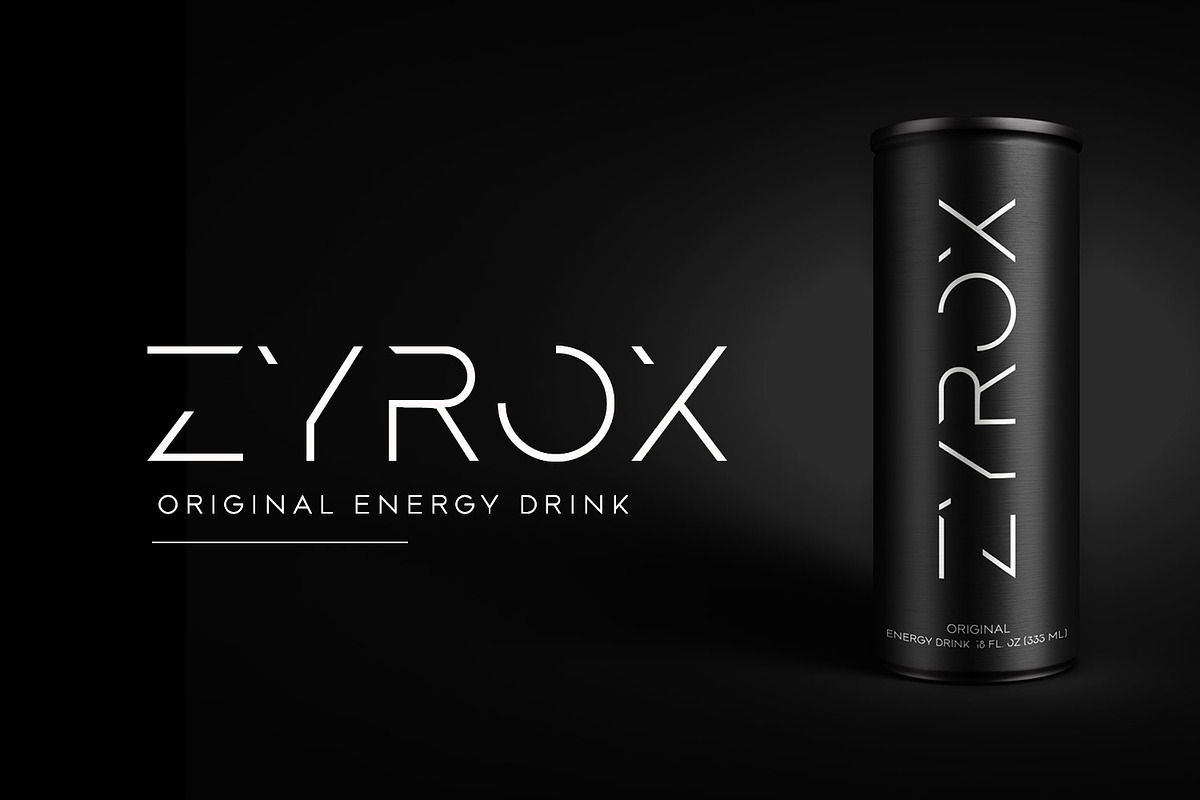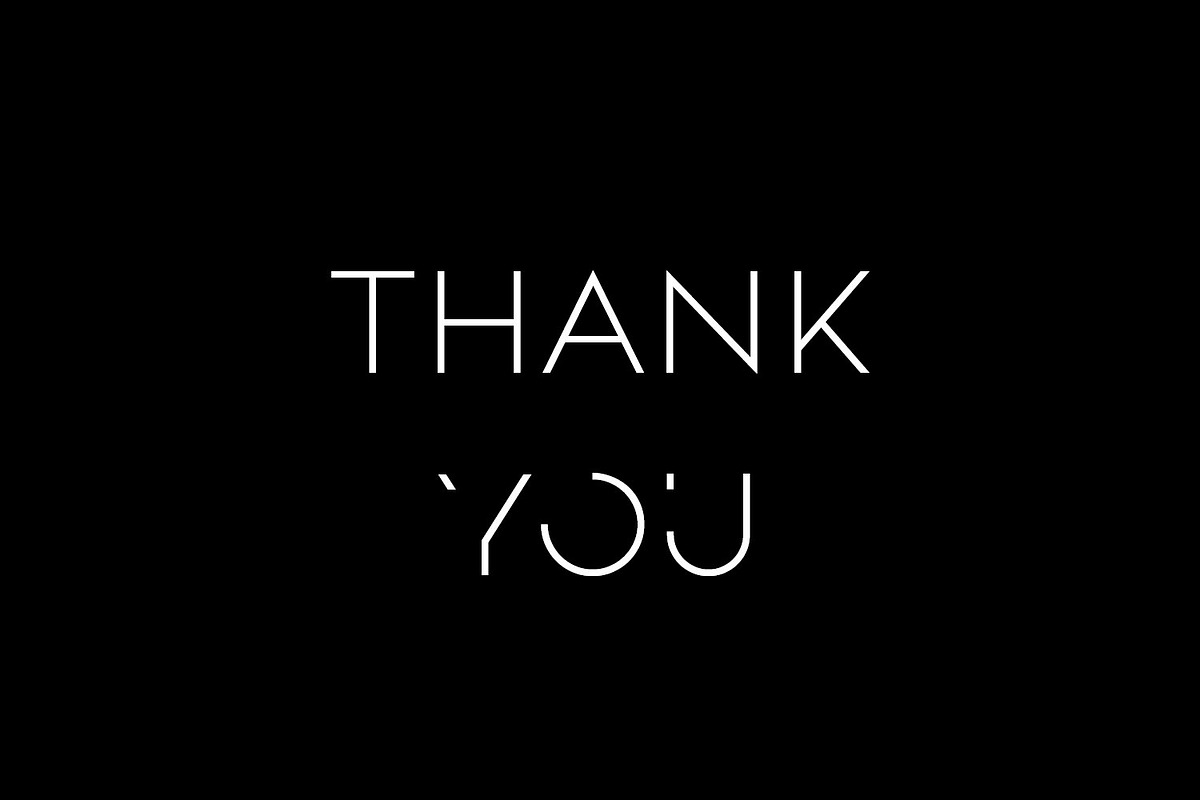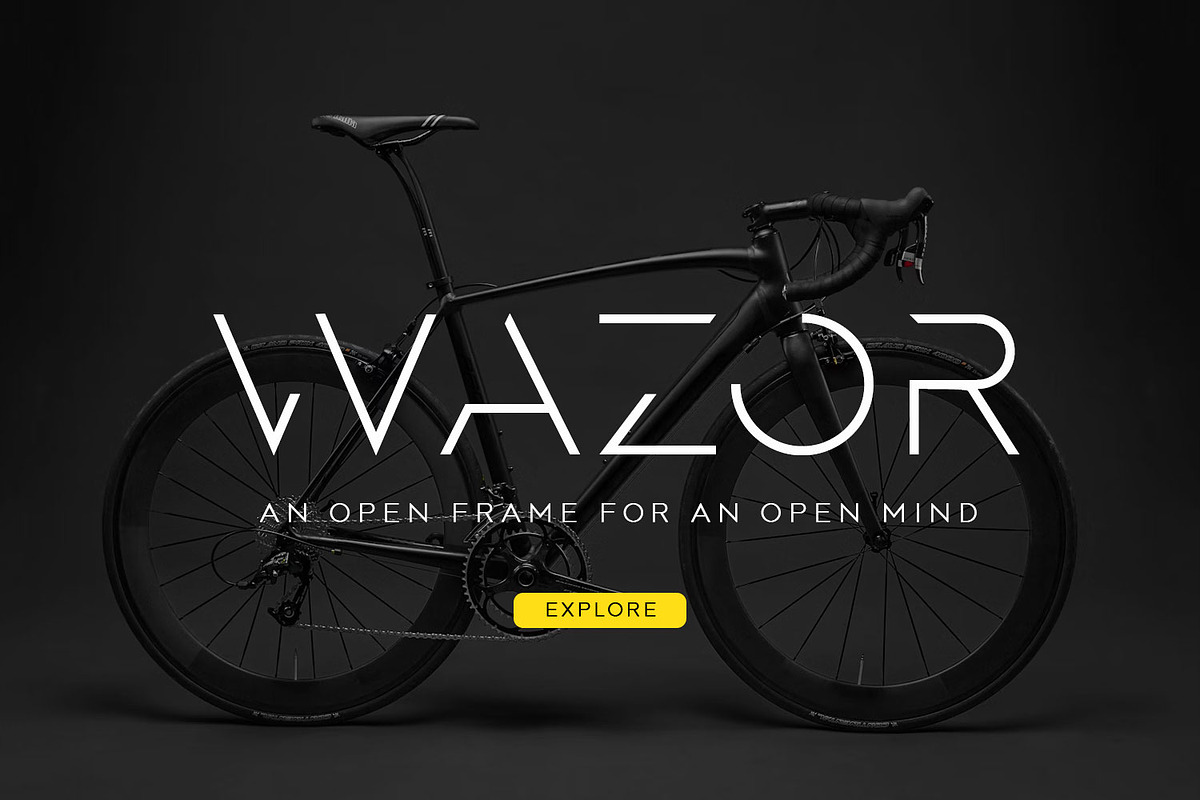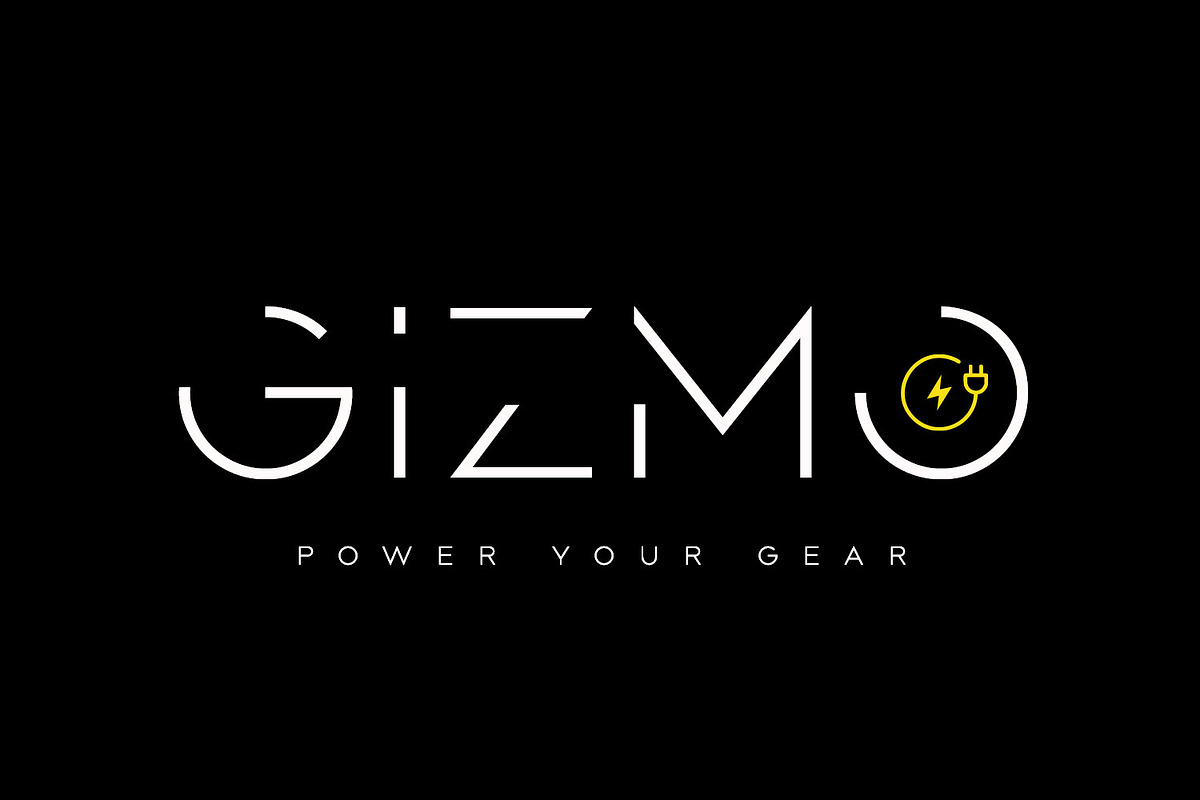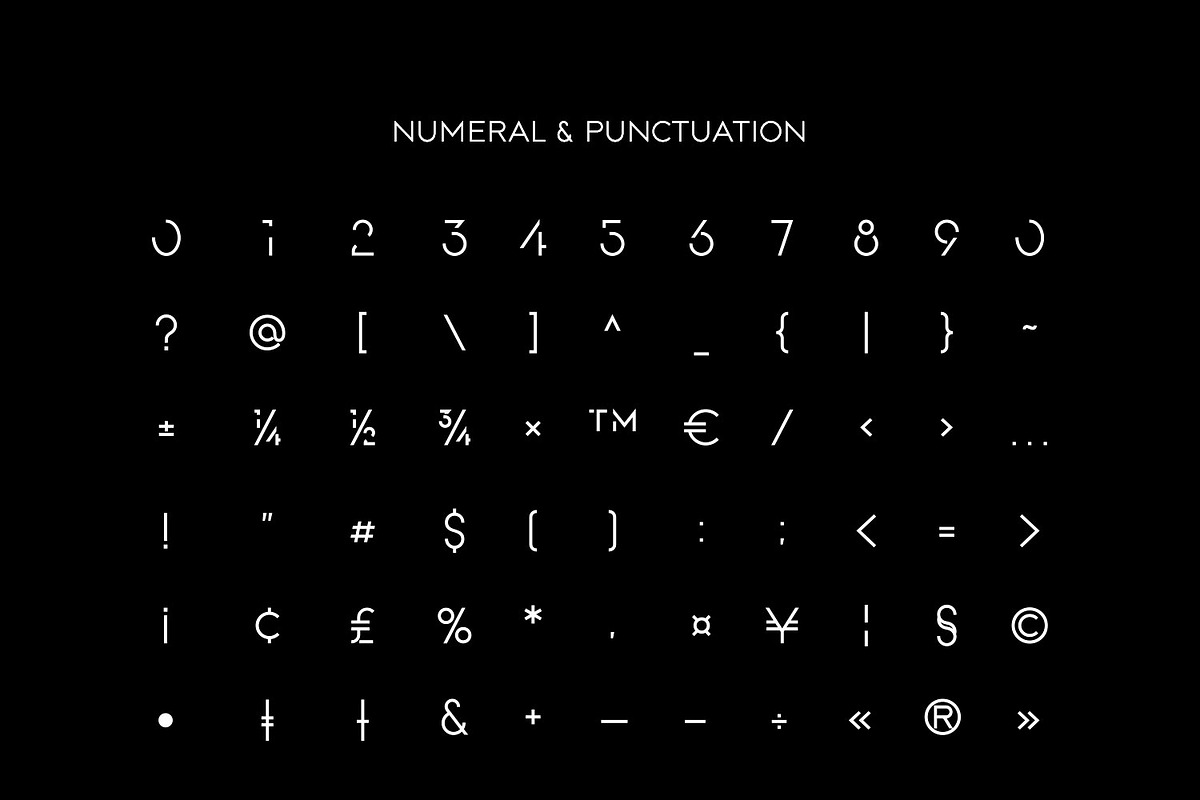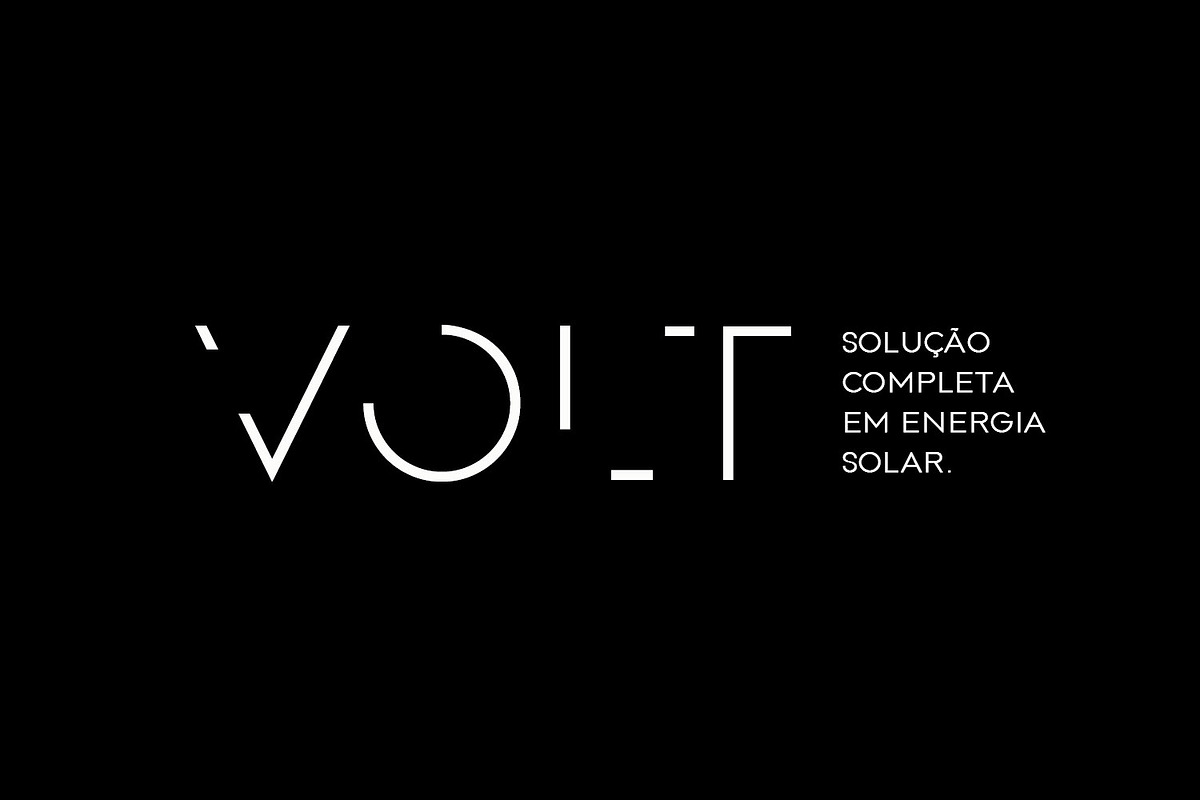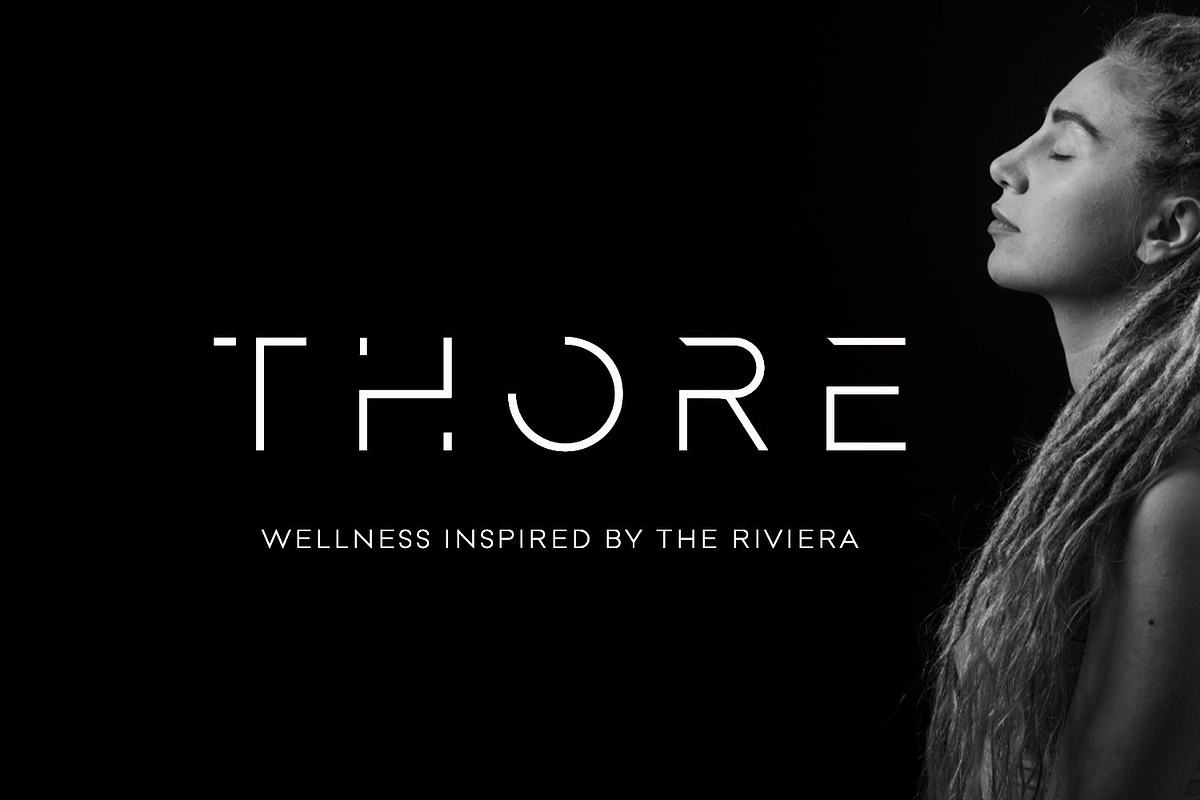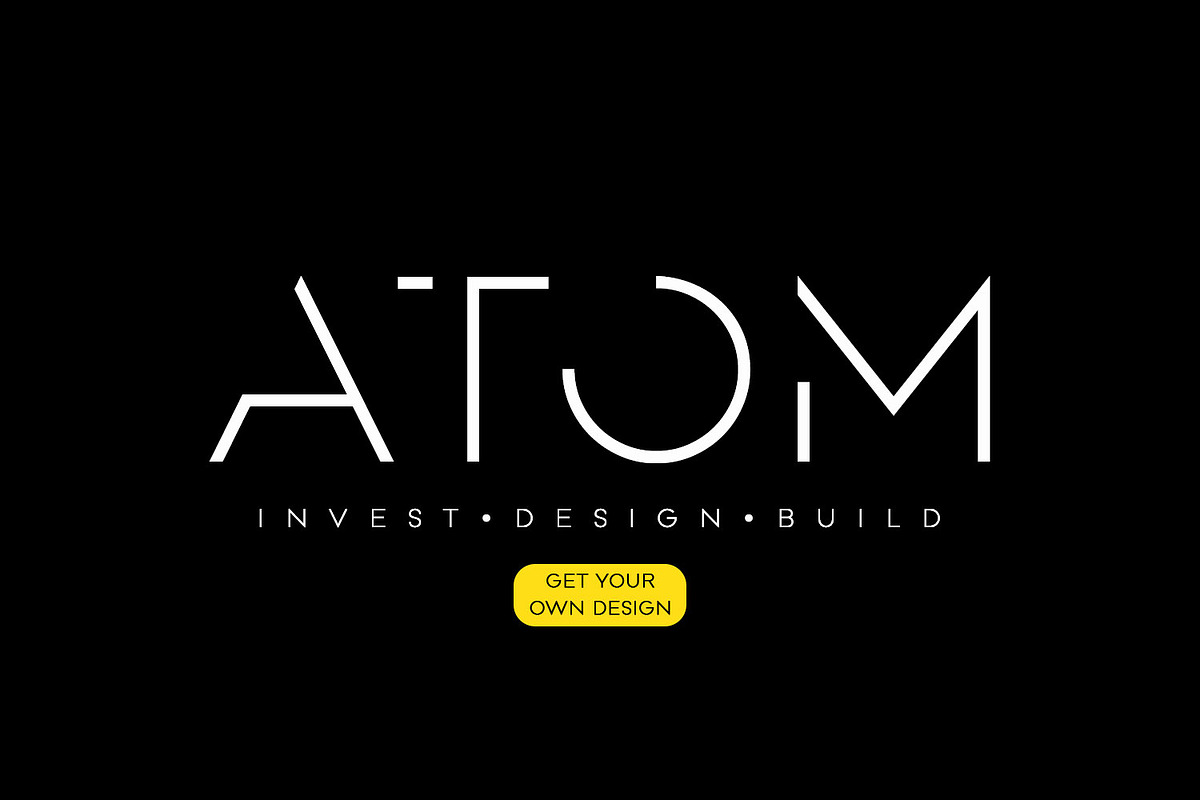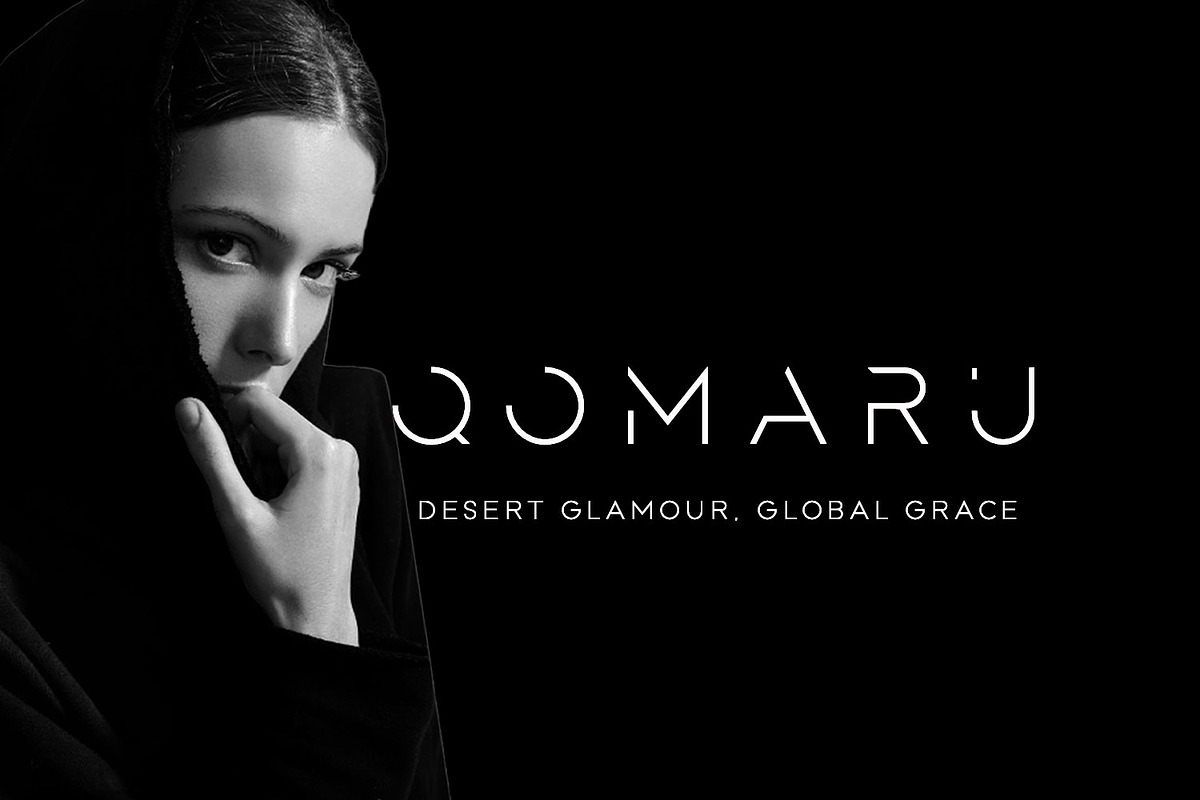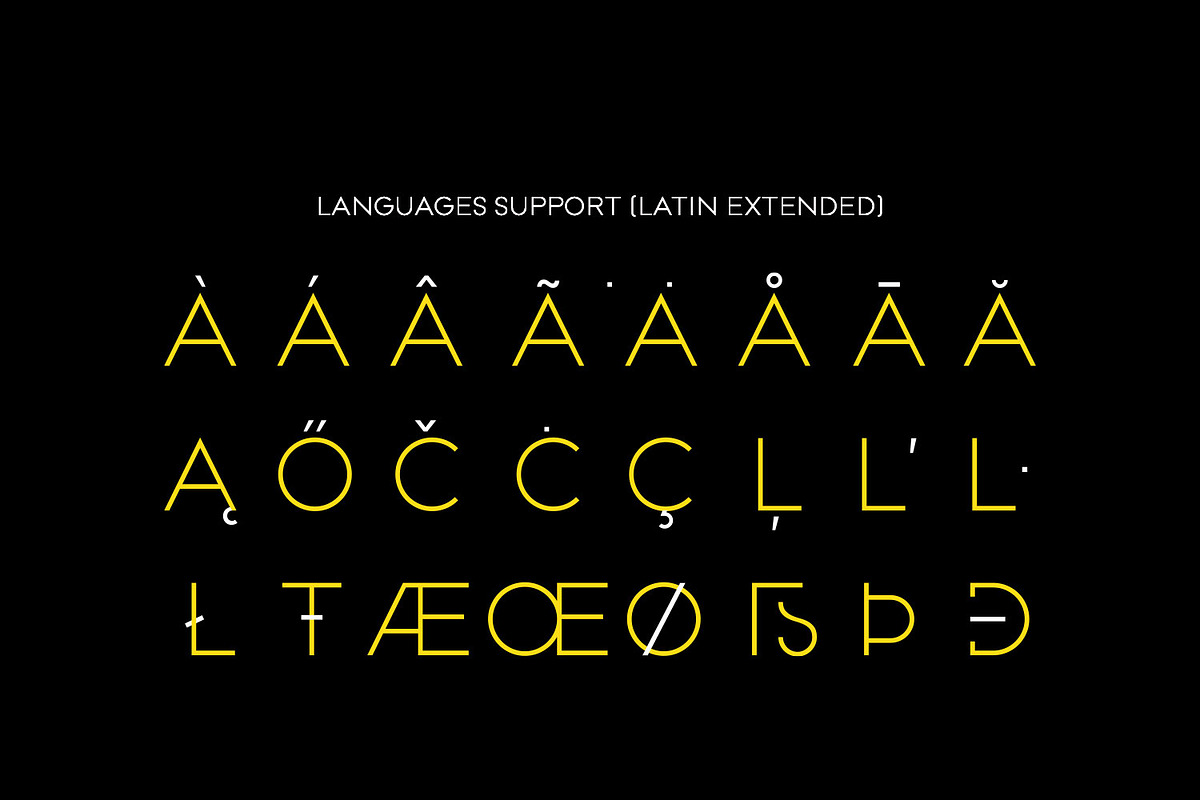
KOMAN
Koman is an all-caps display typeface defined by its clean-cut geometric precision and distinctive stencil breaks. Its open-frame letterforms balance minimalism with architectural structure, creating a modern and sophisticated look. Perfect for branding, luxury products, editorial headlines, sport and tech visuals, Koman brings a bold yet refined presence to any design. With full punctuation, numerals, multilingual Latin support, and a harmonious uppercase-lowercase pairing, this font delivers versatility while keeping its strong, contemporary character.